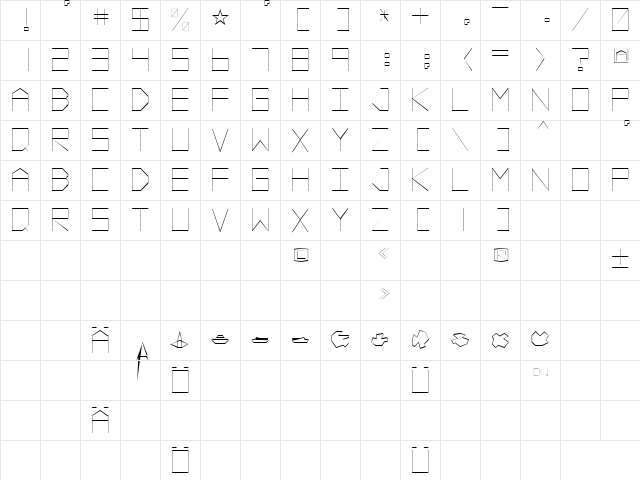
Vector Battle Regular
Design Context for Vector Battle Typeface
Vector Battle is a composed and adaptable typeface that performs quietly and consistently across a wide range of design contexts.